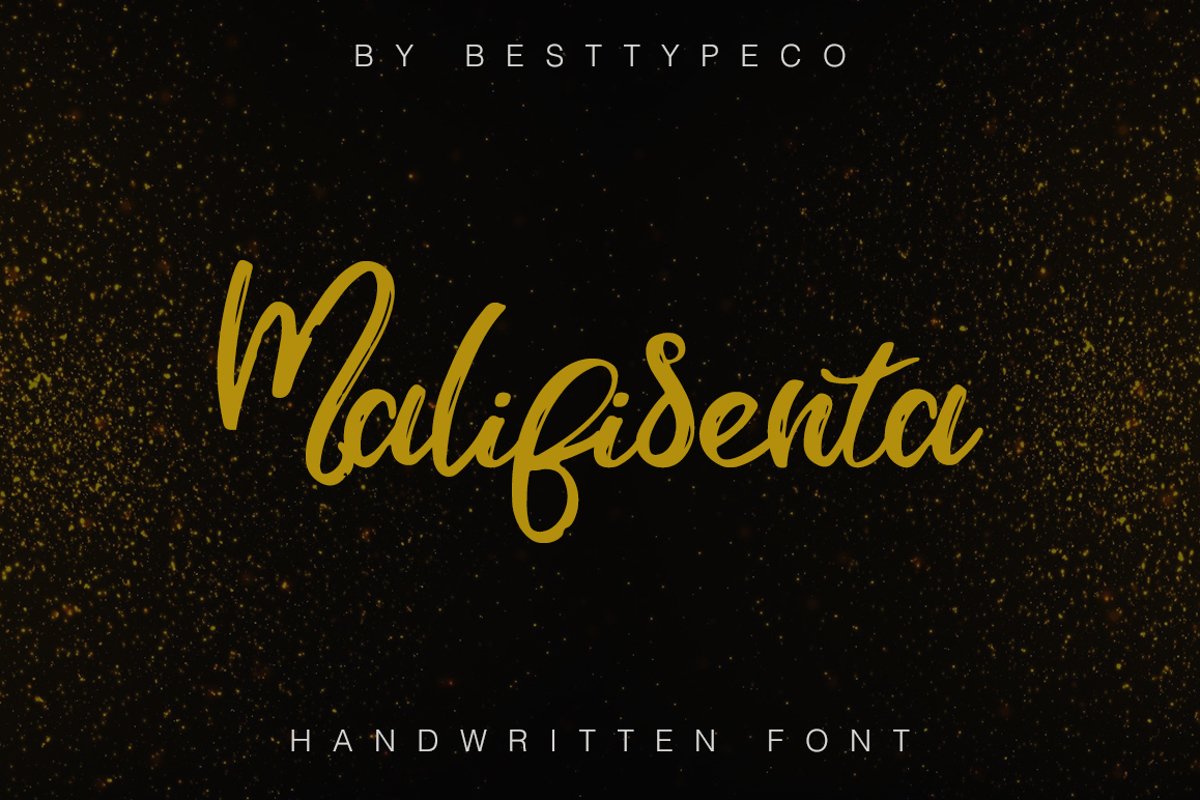
Malifisenta - a new fresh handmade calligraphy font. Very suitable for greeting cards, branding materials, business cards, quotes, posters, and more!
This font are perfect for wedding postcard. Or you can create perfect and unique design of your logo, blog, stationery, marketing, magazines and more :)